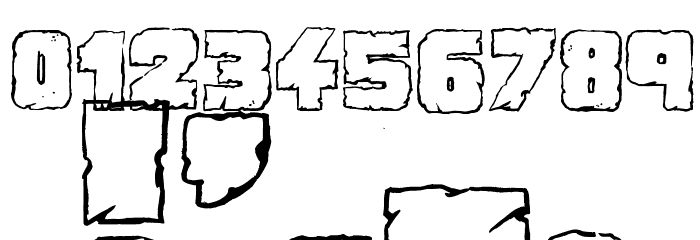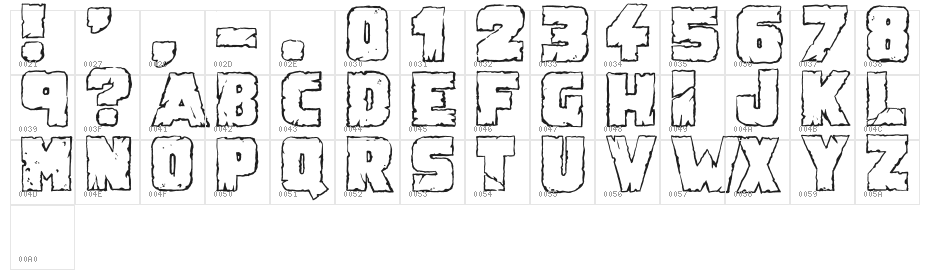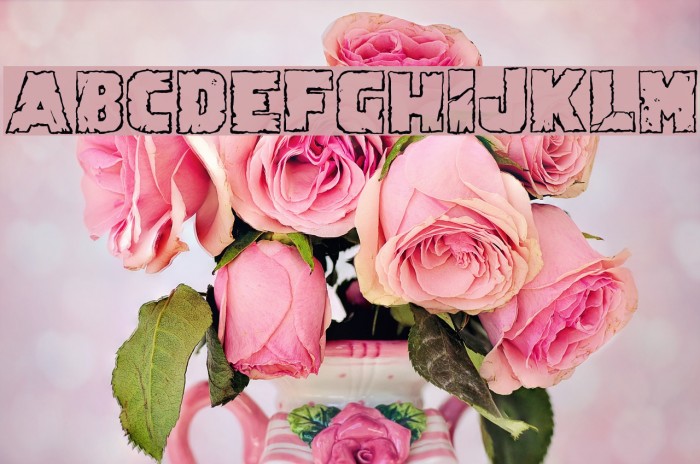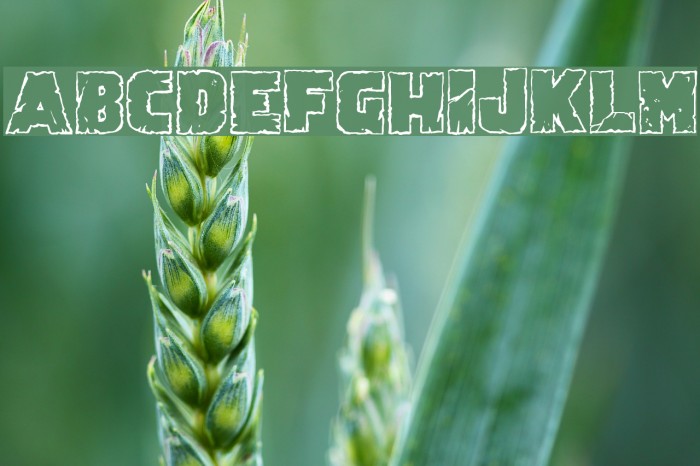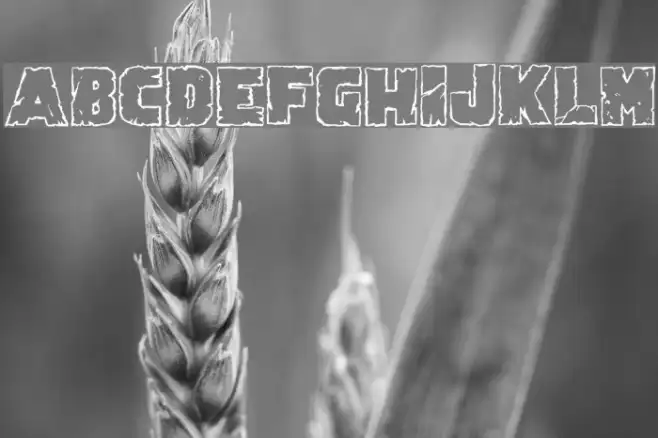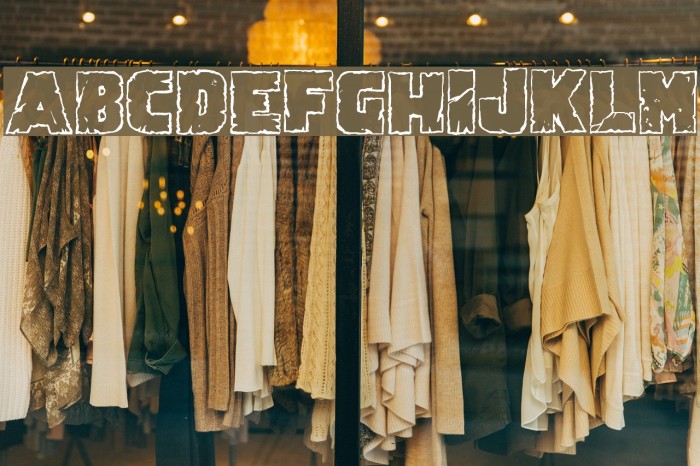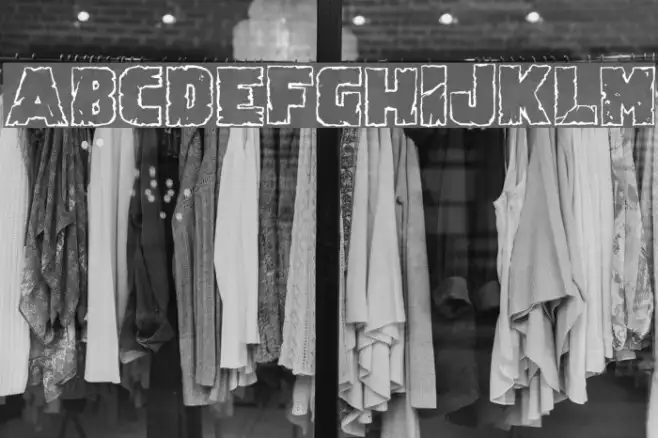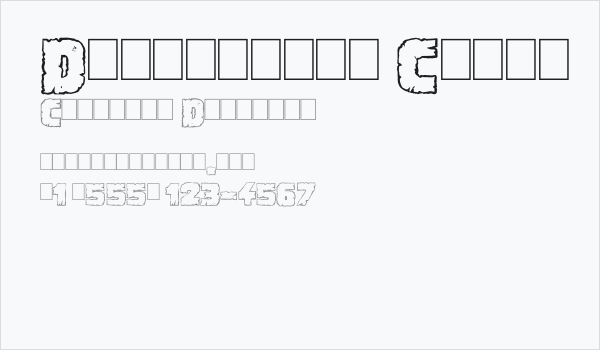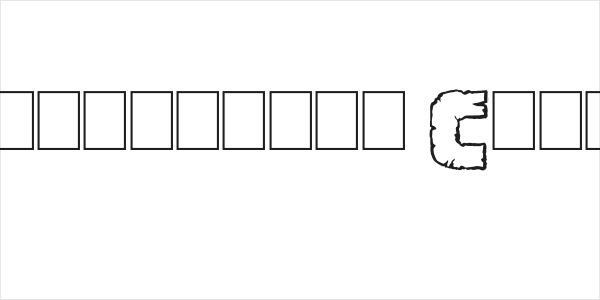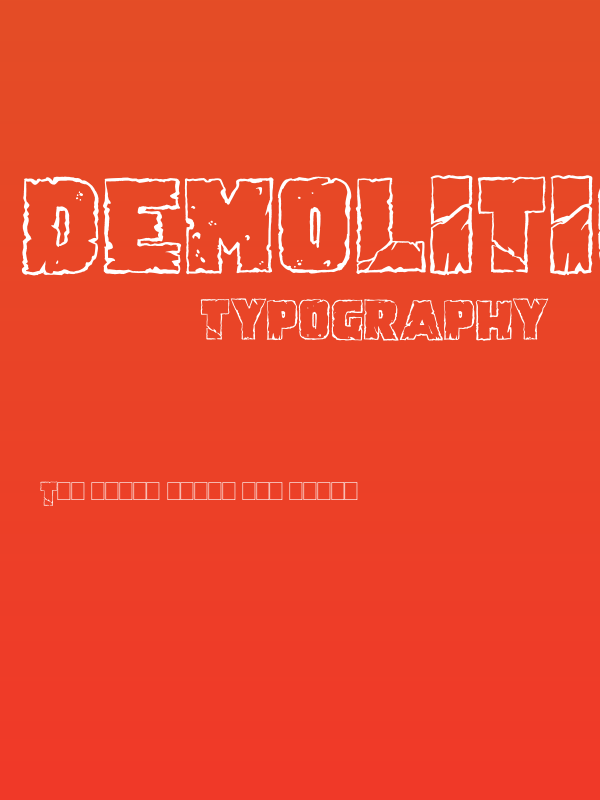
Demolition Crack Font
Demolition Crack Description
This font exhibits a rugged and distressed appearance, characterized by its cracked and fragmented edges. Each letter appears as if it has been chiseled from stone, giving it a bold and impactful look. The uppercase and lowercase letters maintain a consistent style, with jagged lines and uneven surfaces that add to its raw aesthetic. Numbers and special characters follow the same design, ensuring uniformity across all glyphs. This font is ideal for projects that require a strong, industrial feel, such as posters, logos, or titles that need to convey strength and durability.
| Proposed Projects | Ideal for posters, logos, and titles needing a strong, industrial feel. |